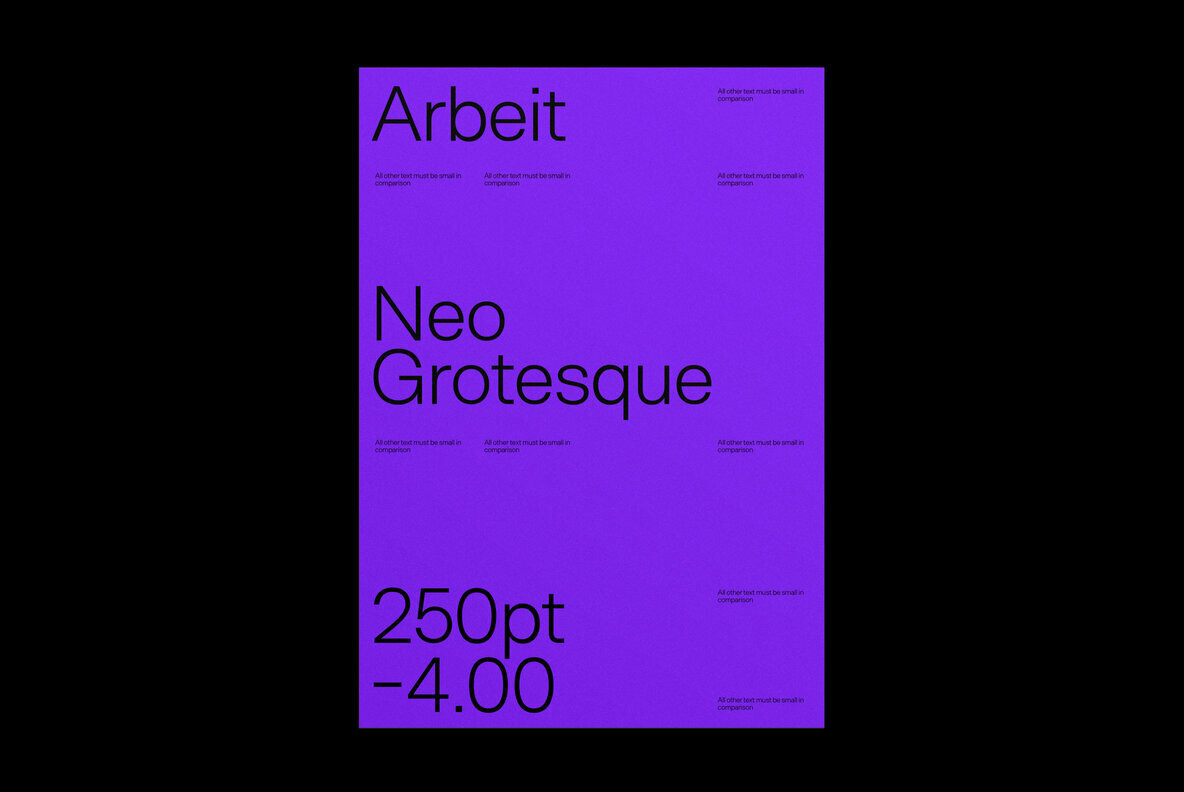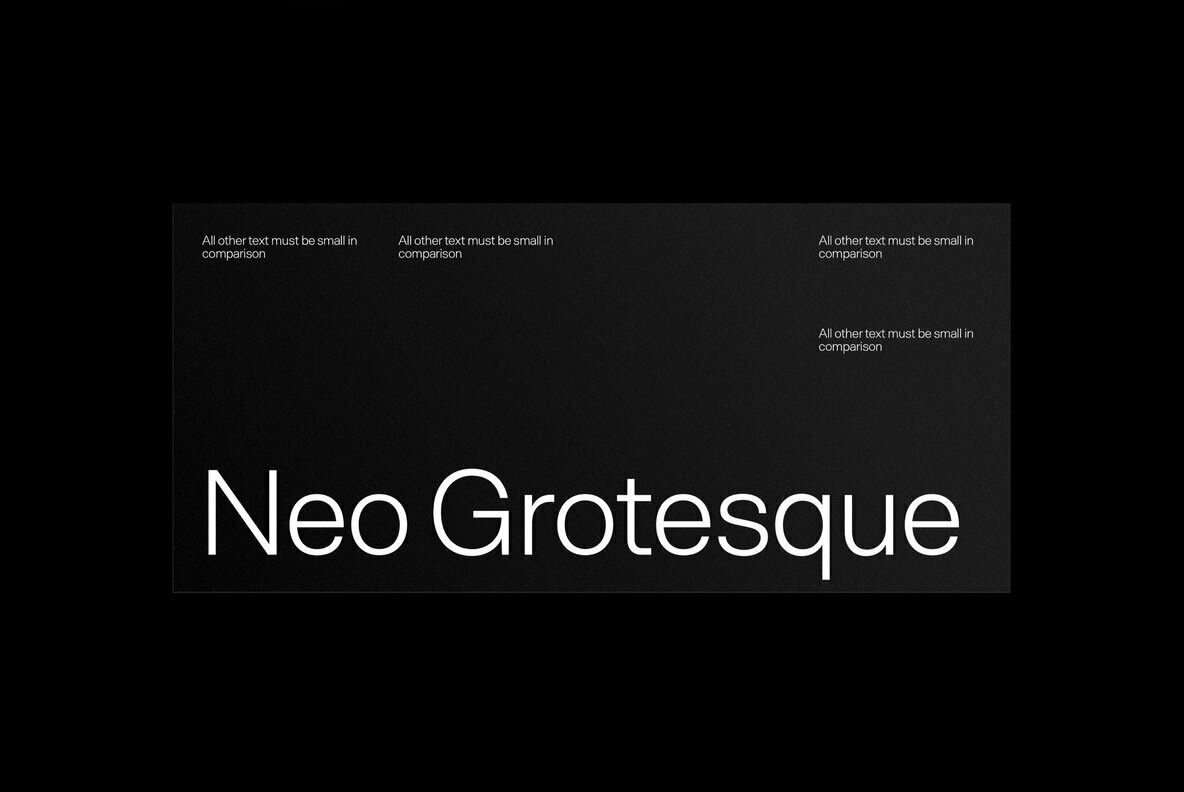
Arbeit is a functional Neo-Grotesque typeface. A variable version of the font is included with the complete family. Arbeit Posted by Samuel Oakes, a multi-disciplinary designer currently working full time in London. His approach is functional, reductive and user focused. Powered by YWFT.